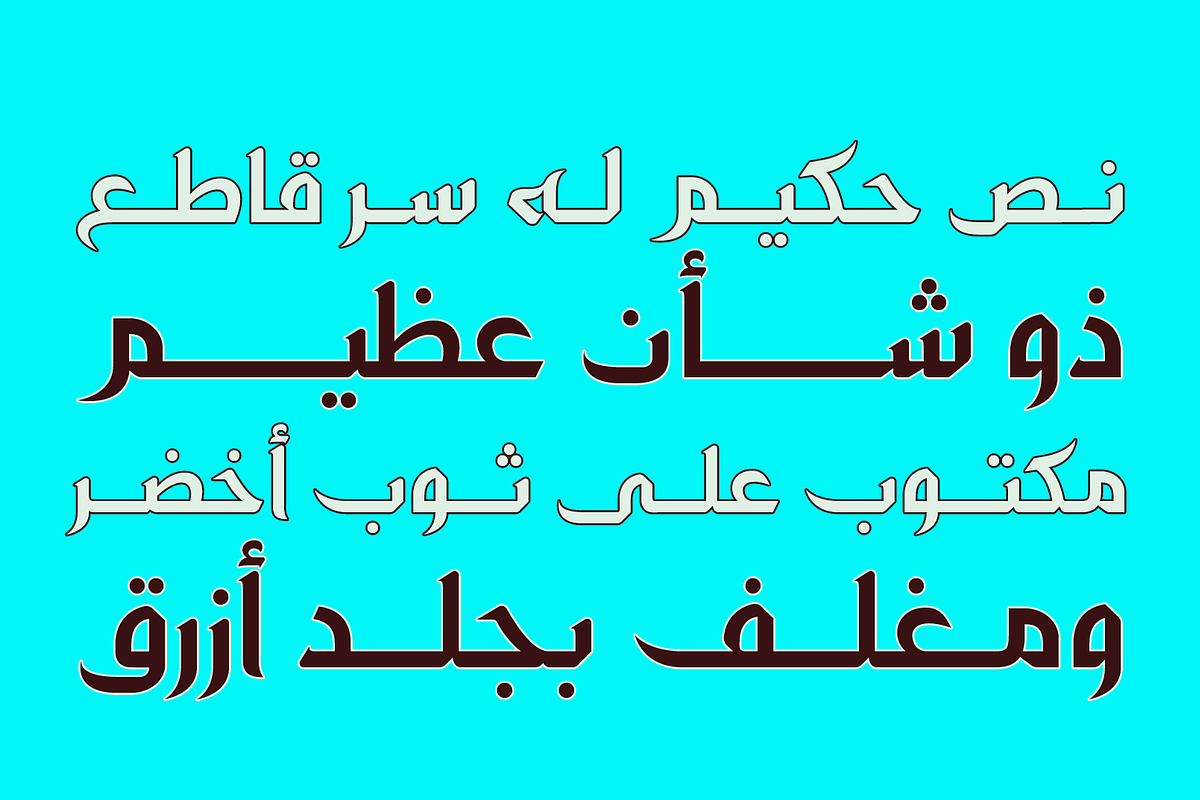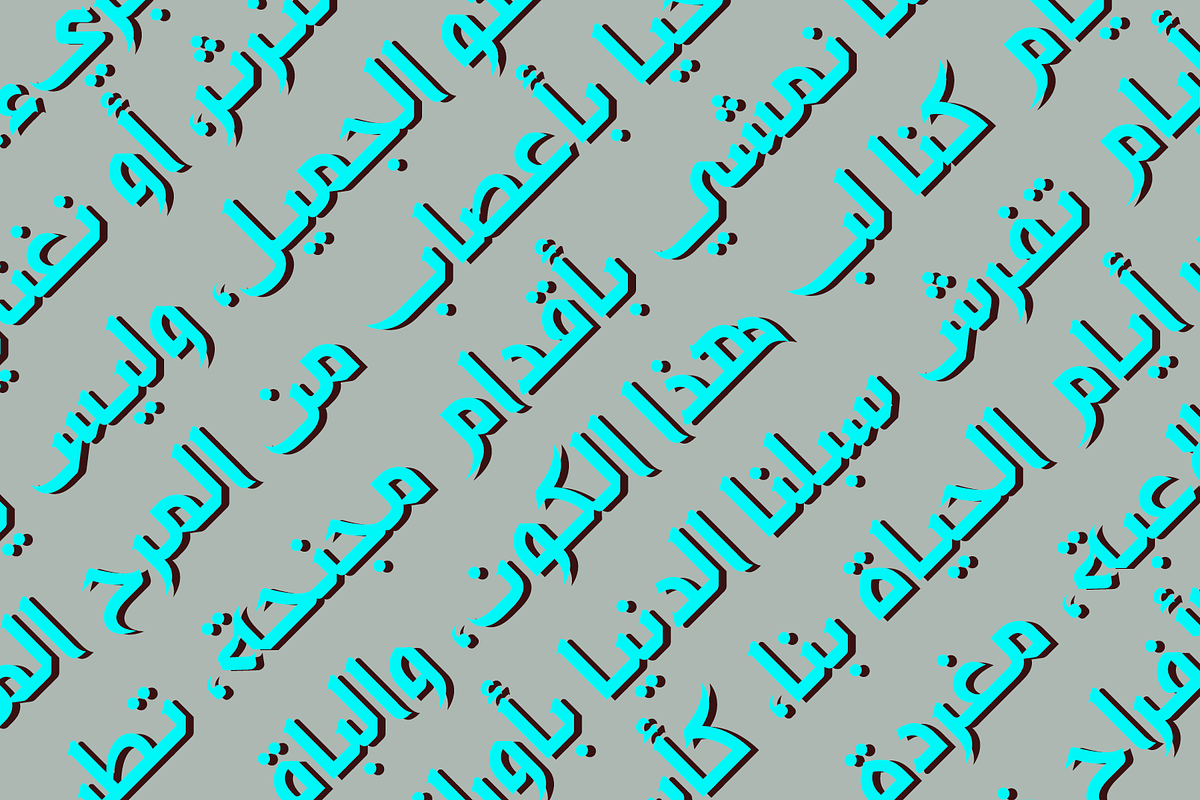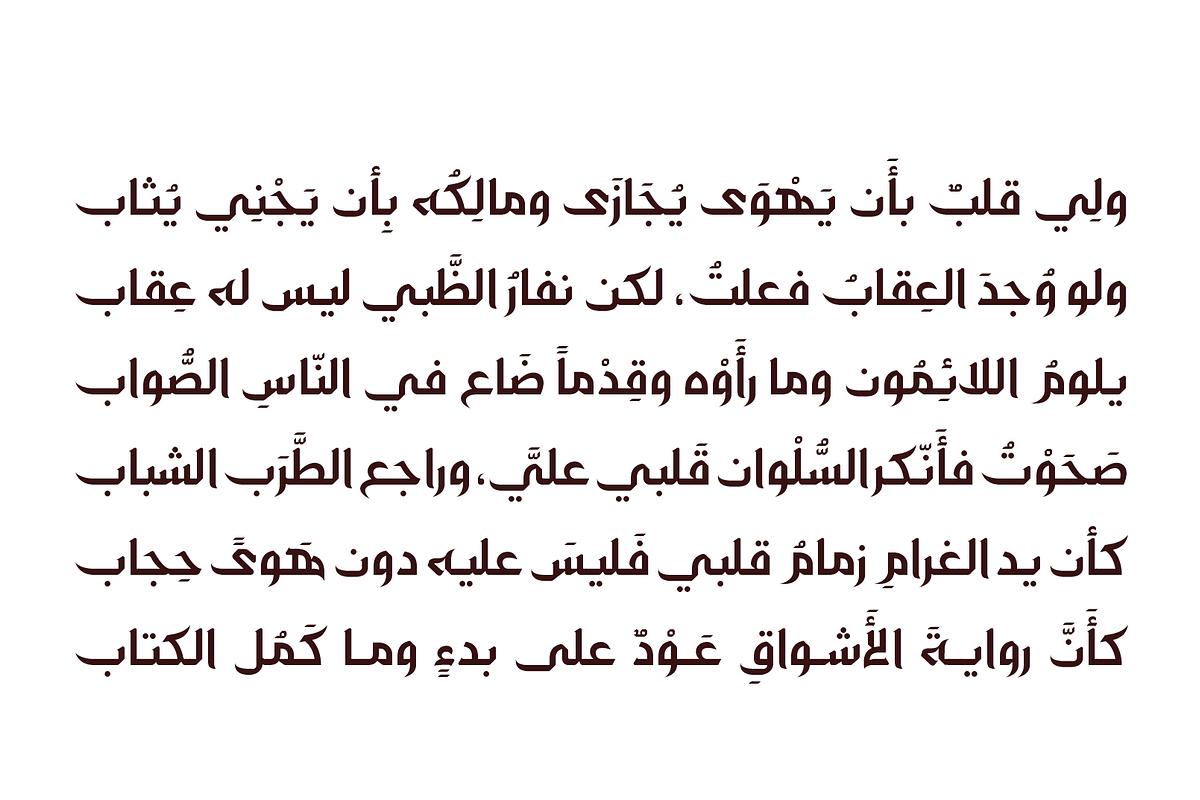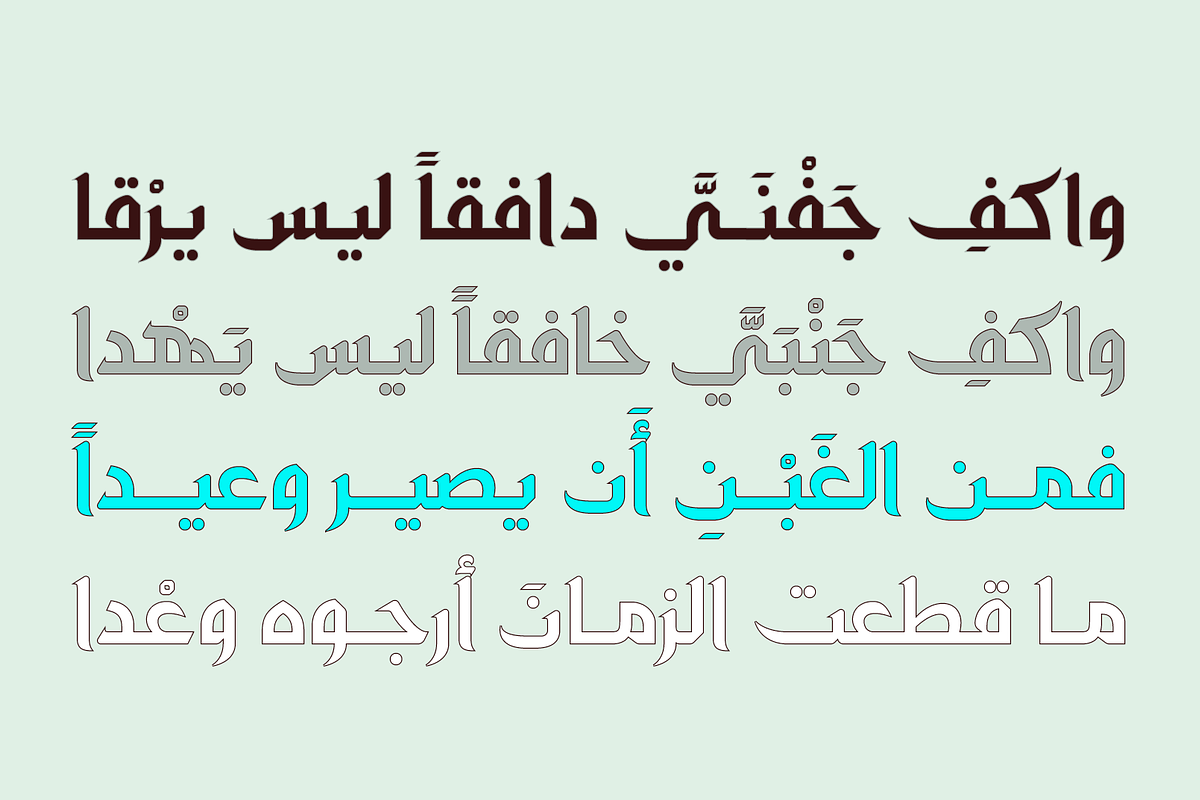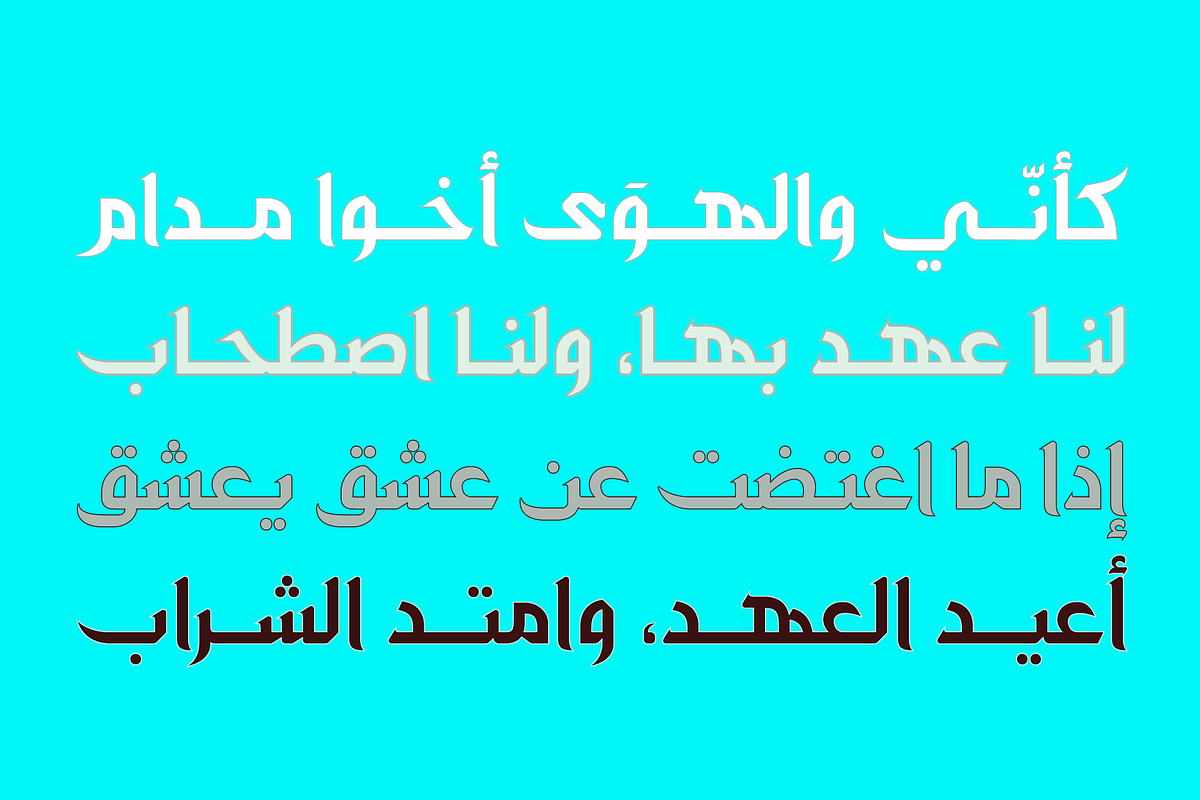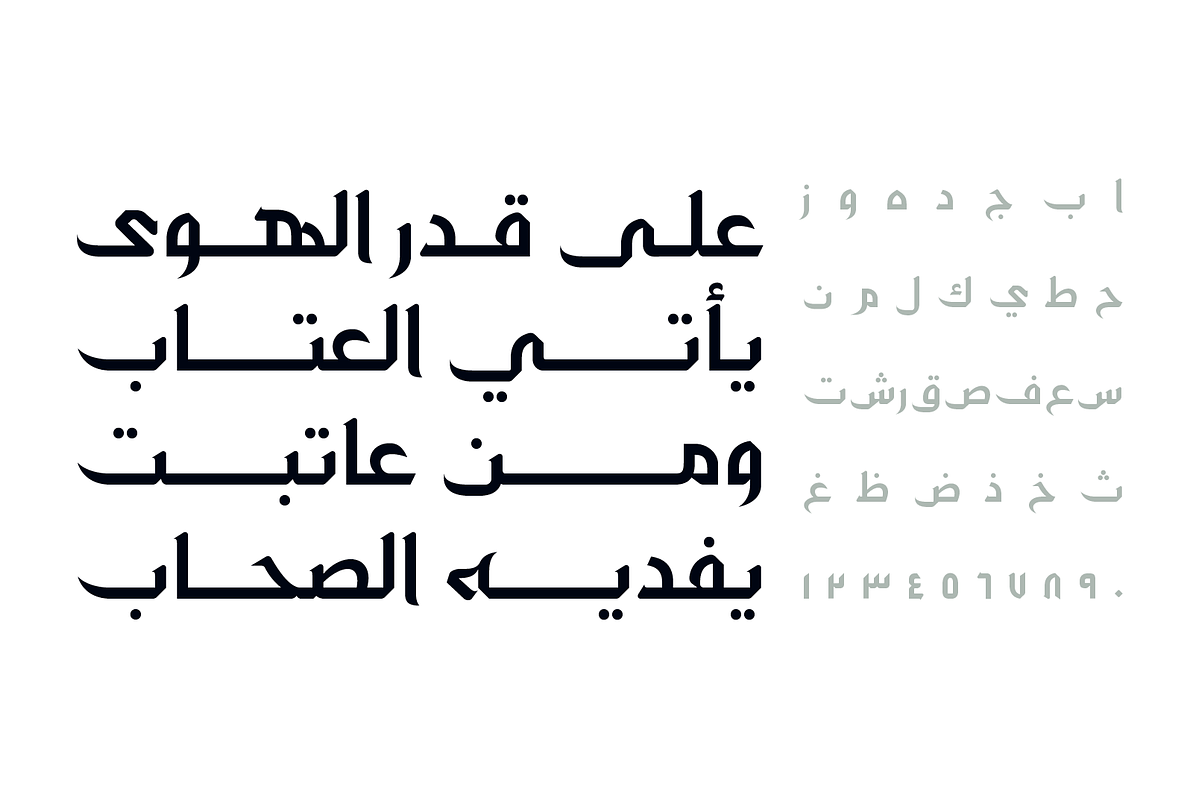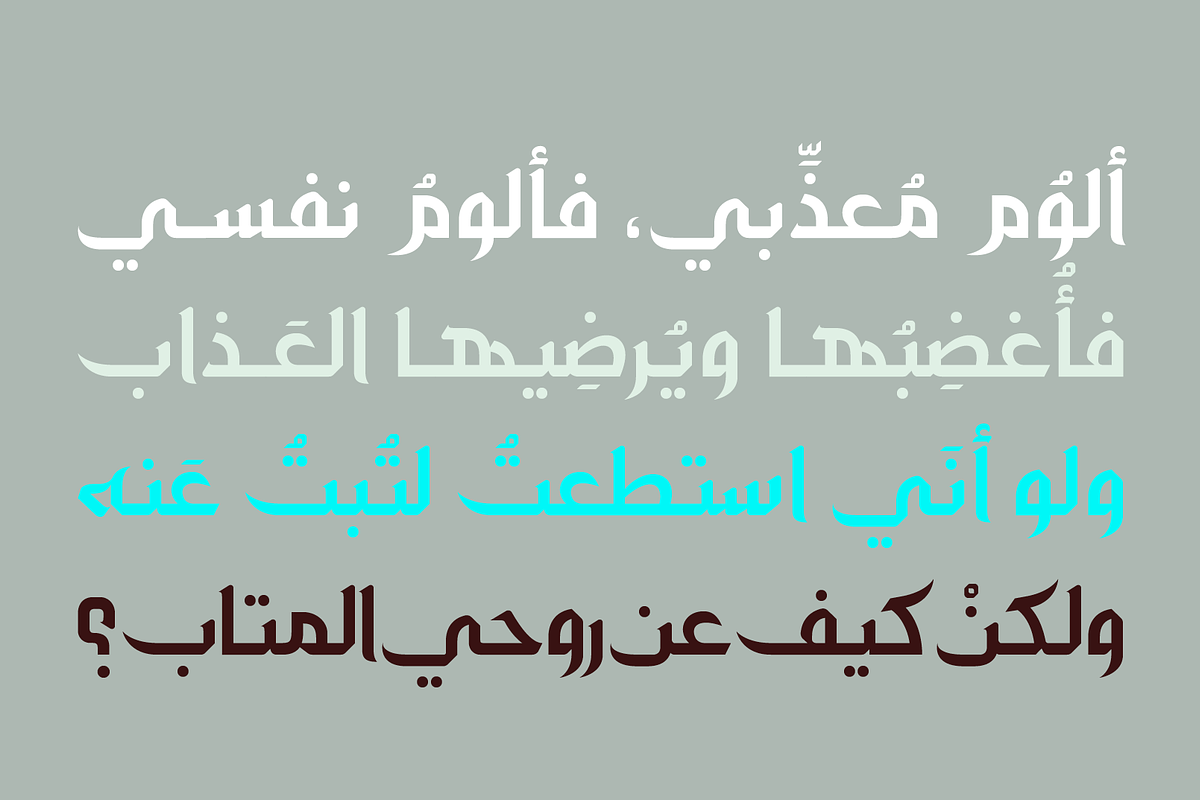
Zahey - Arabic Font | خط زهي
The word Zahey is the Arabic for vivid. Zahey is an Arabic display font that uniquely combines the geometric structure with the traditional penmanship. The font suits publication design, branding and web.